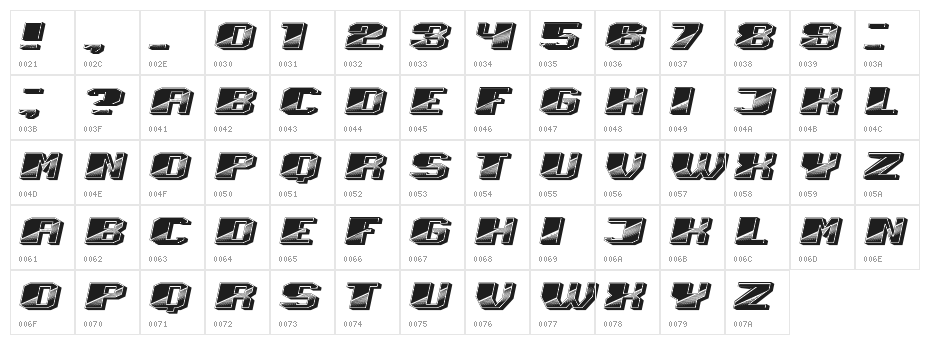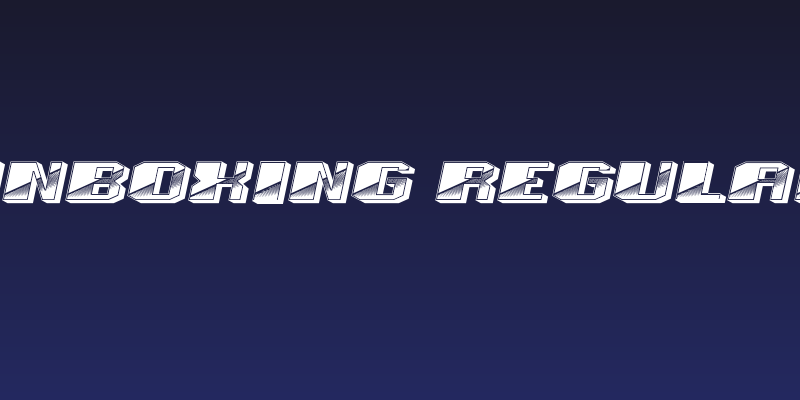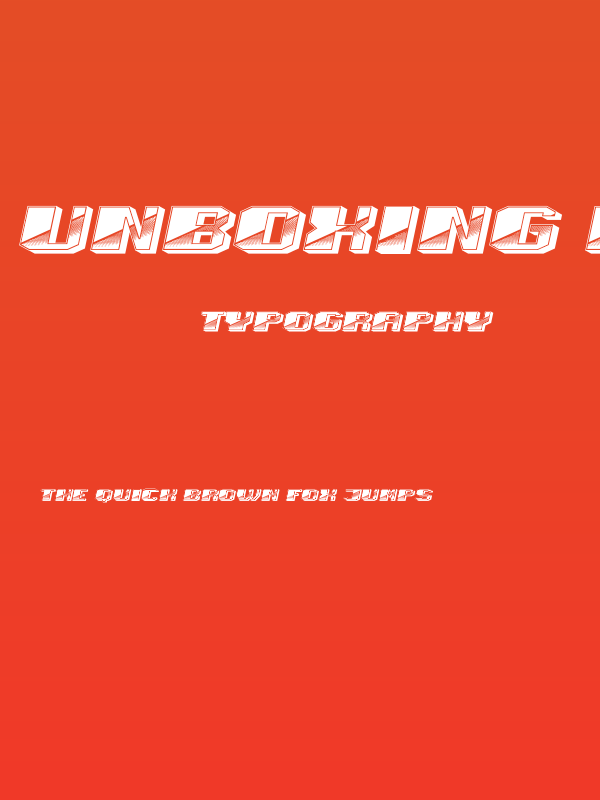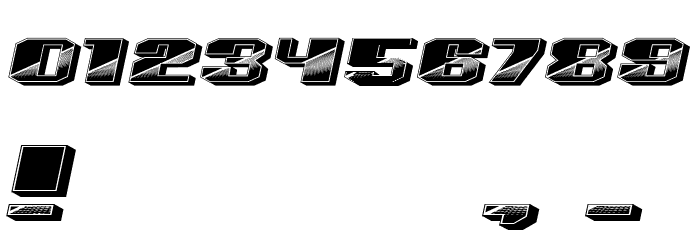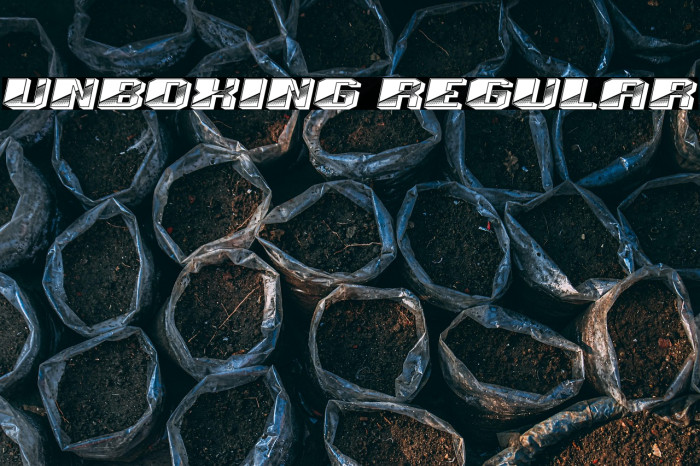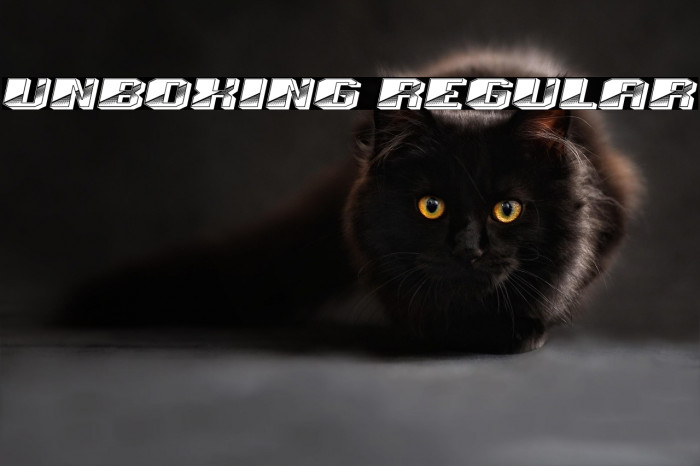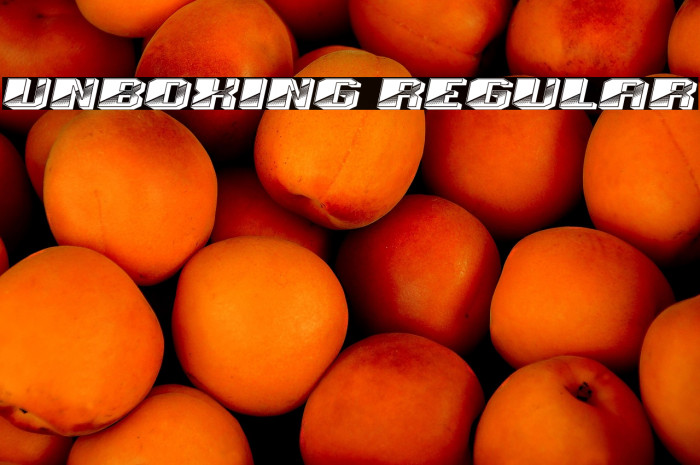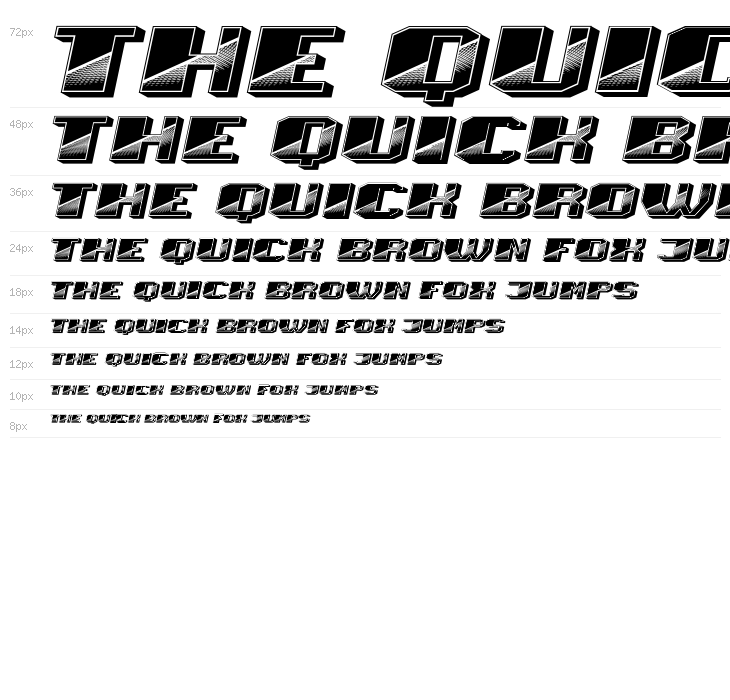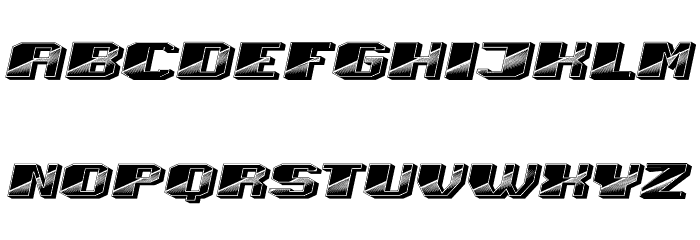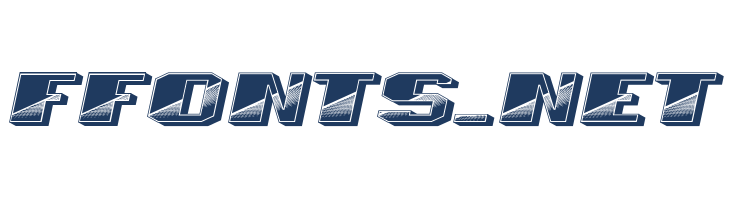
Unboxing Regular Font
Unboxing Regular Description
This font features a bold, dynamic style with a three-dimensional effect that gives each character a sense of depth and movement. The letters are designed with sharp angles and a slanted orientation, creating a sense of speed and modernity. The strokes are thick, with a consistent width that emphasizes the boldness of the font. The characters are tightly spaced, enhancing the compact and impactful appearance. This font is particularly eye-catching due to its unique shadowing and layered design, making it stand out in any context.
| Proposed Projects | Ideal for sports branding, video game titles, dynamic posters, and modern advertising. |